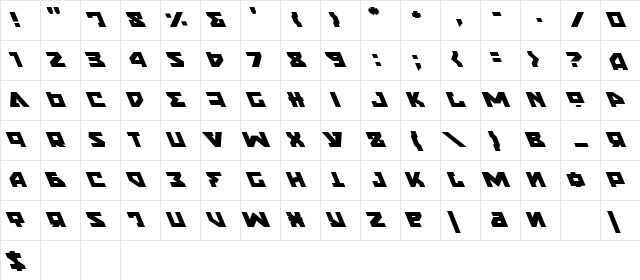
Nyet Leftalic is a composed and adaptable typeface that performs quietly and consistently across a wide range of design contexts. The slanted form adds forward momentum and visual energy.